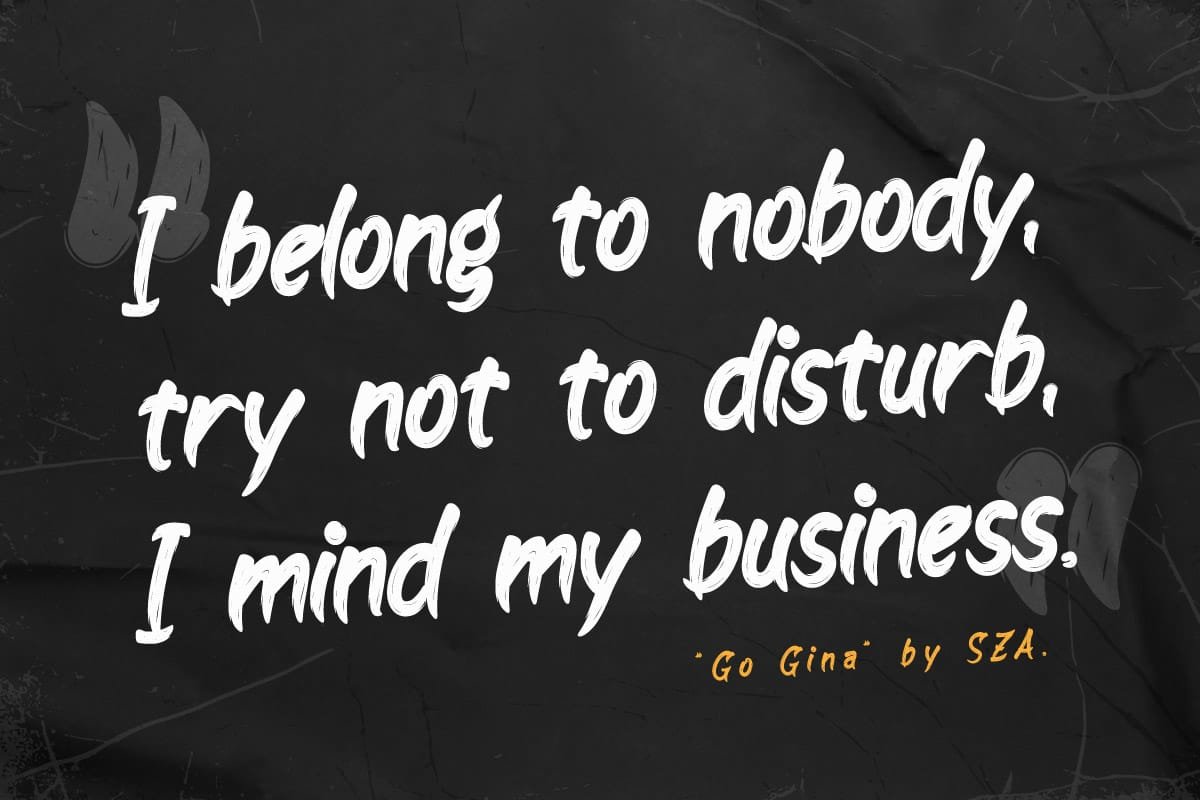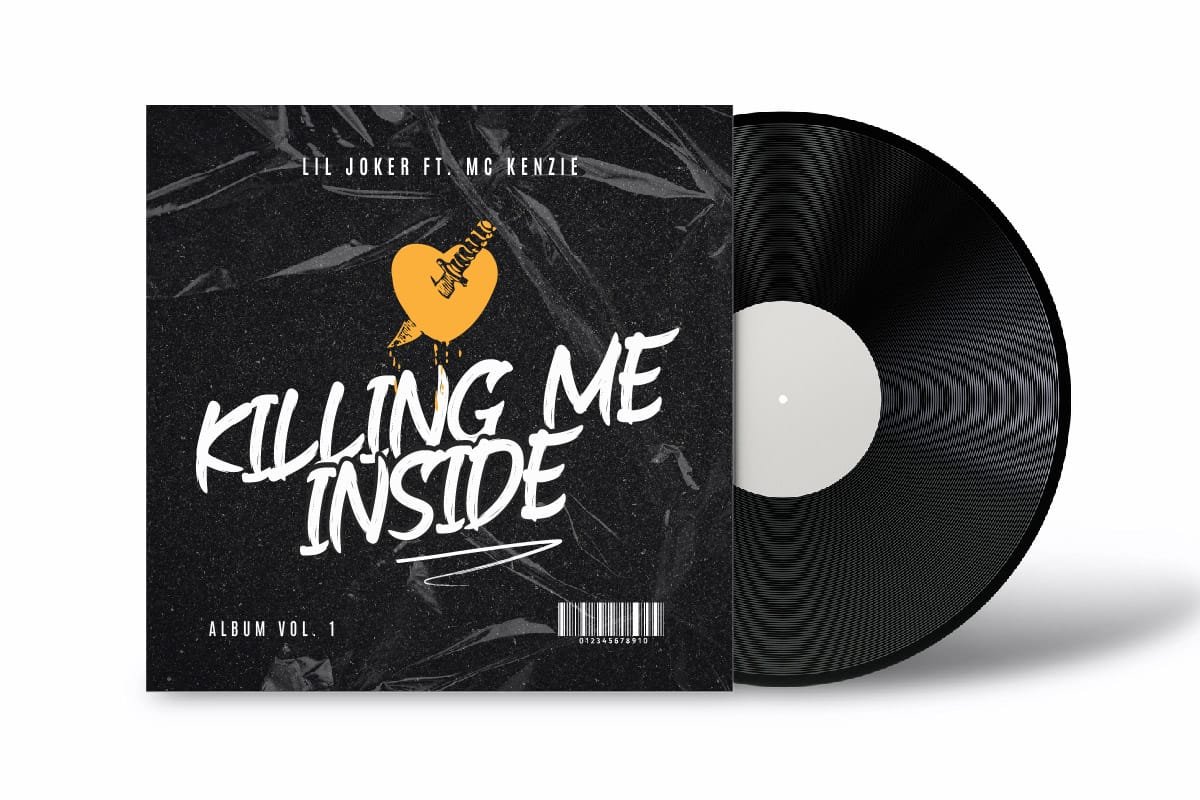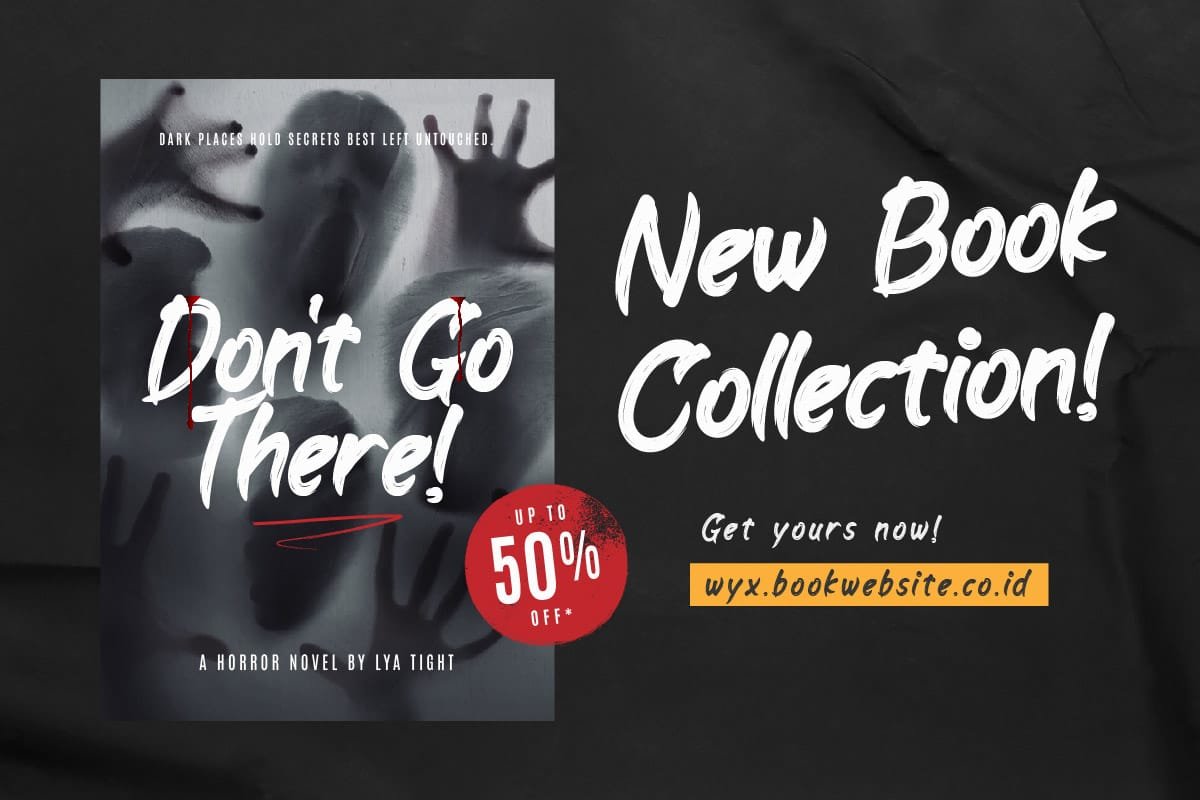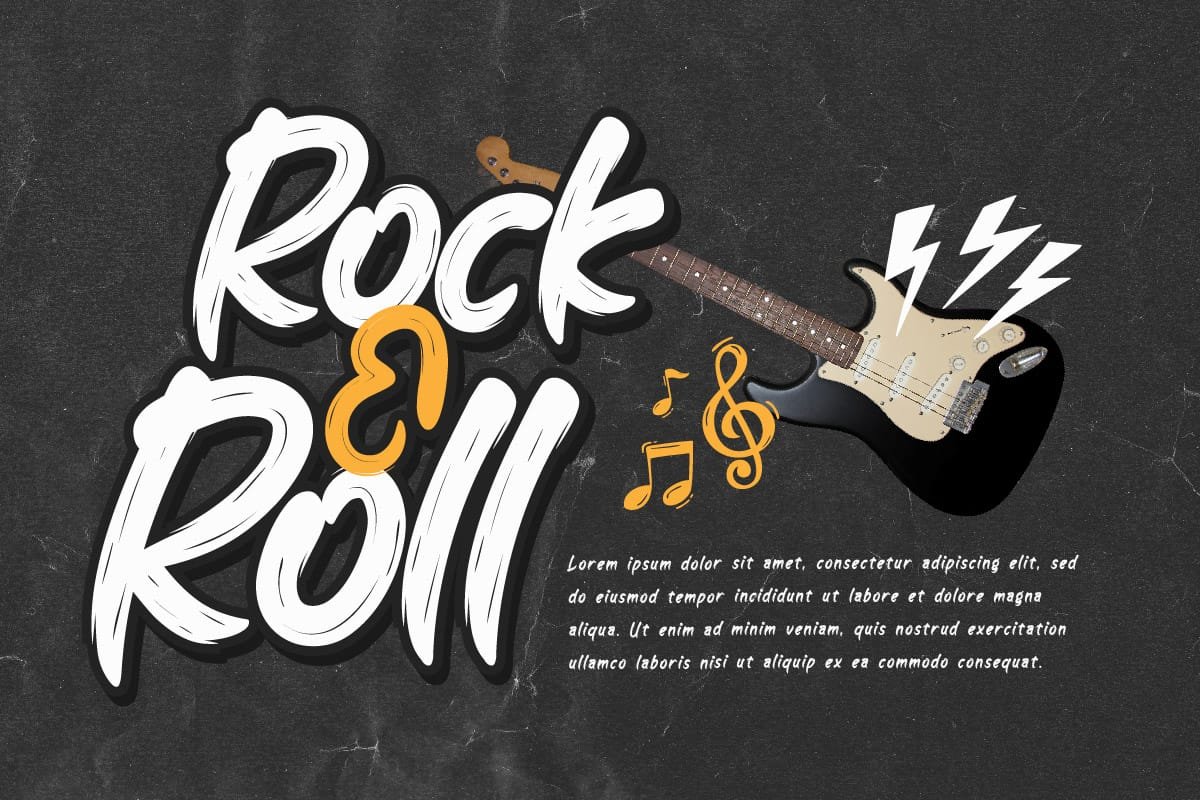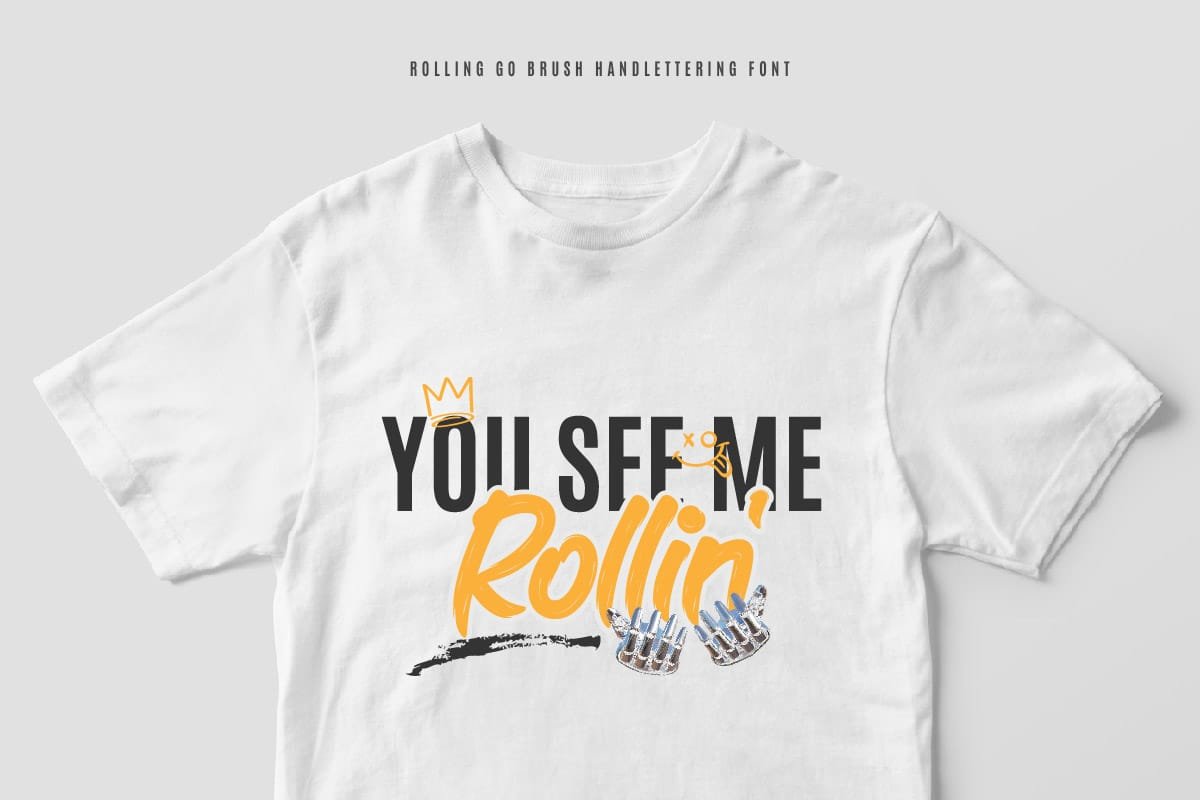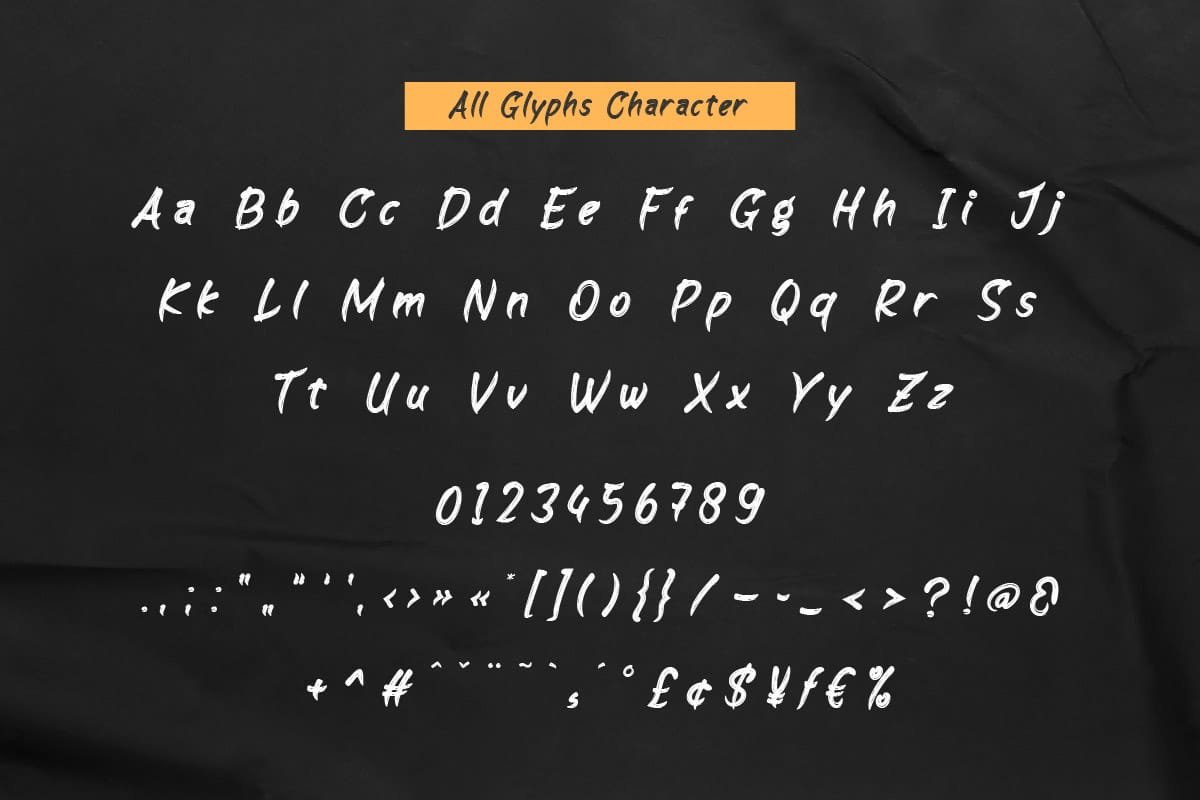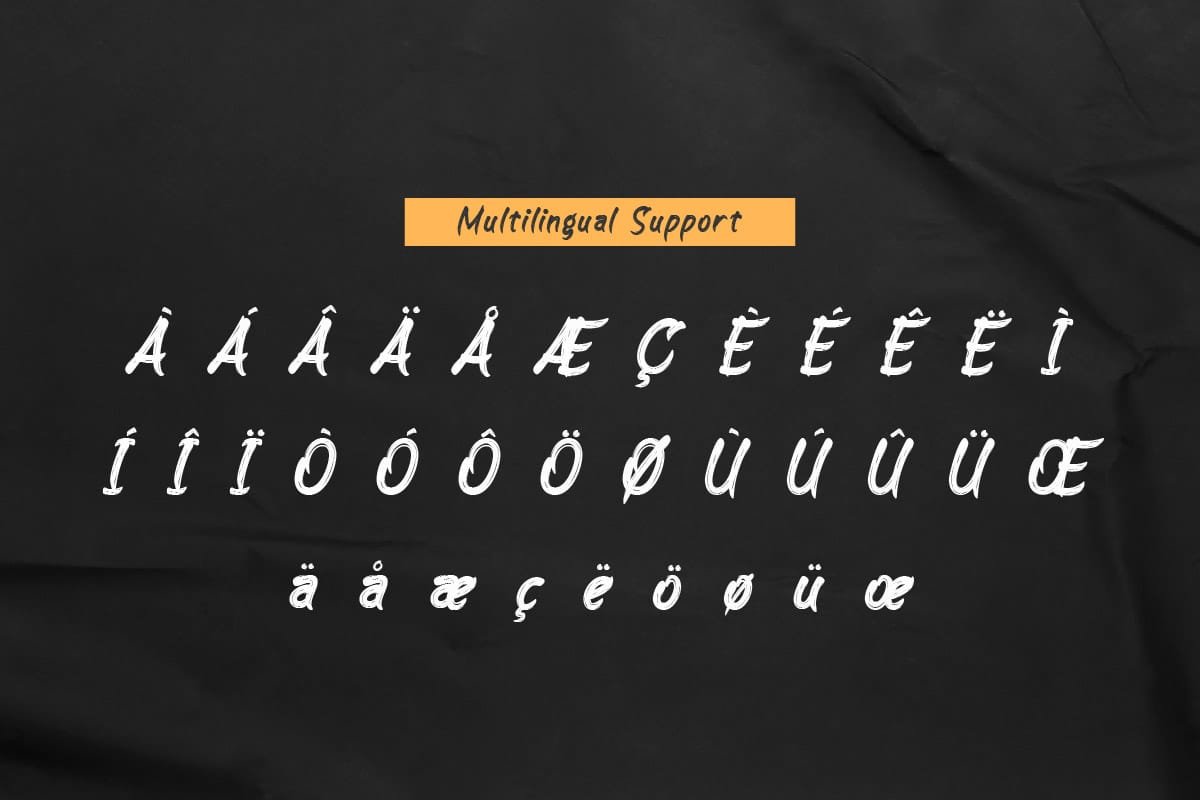
Rolling Go is a brush-written font that captures the spirit of adventure. Its bold, dynamic characters are perfect for designs that require a touch of excitement and energy. Whether you’re creating a logo for an outdoor brand or a headline for a travel blog, Rolling Go adds a touch of adventure that is sure to captivate your audience.